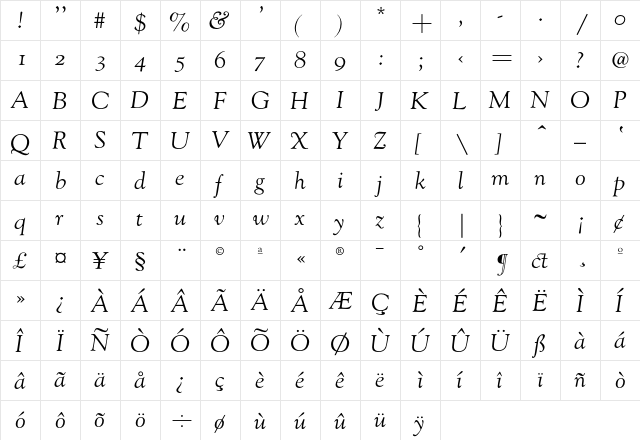
GoudyOldstyleH-Italic Regular
Design Context for GoudyOldstyleH-Italic Typeface
GoudyOldstyleH-Italic carries the refined structure of traditional serif typography, with bracketed terminals and considered proportions that communicate credibility and craft. Its italic angle brings a sense of urgency and motion to the letterforms.